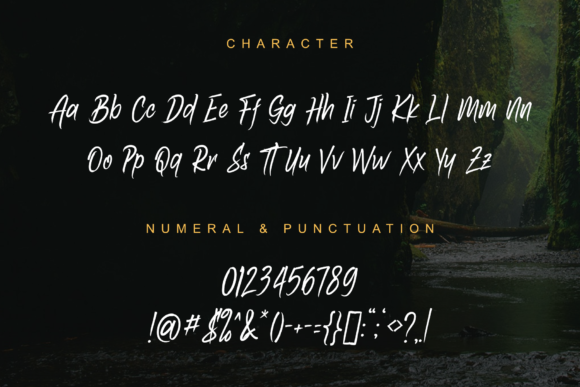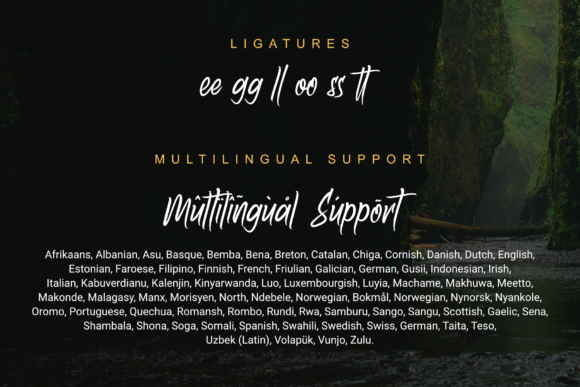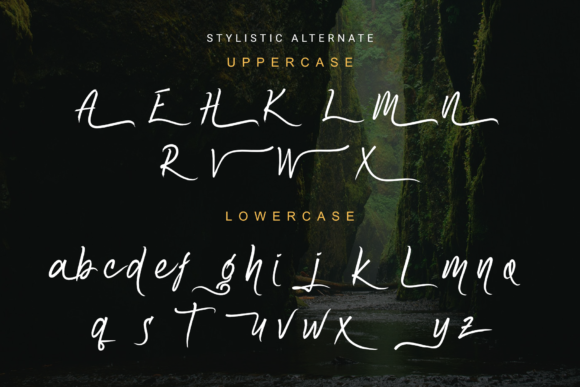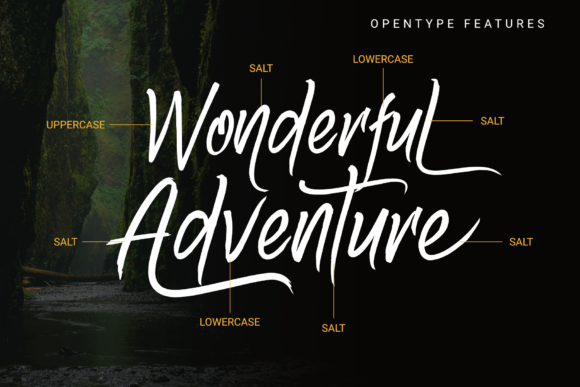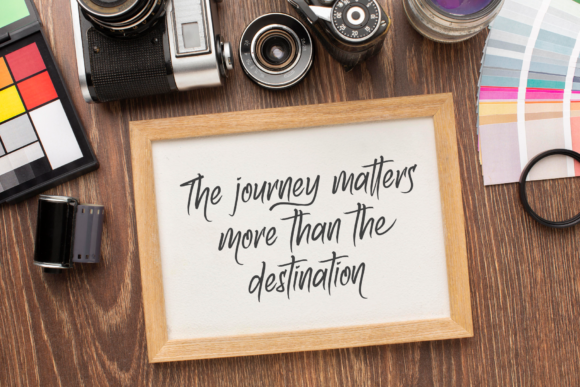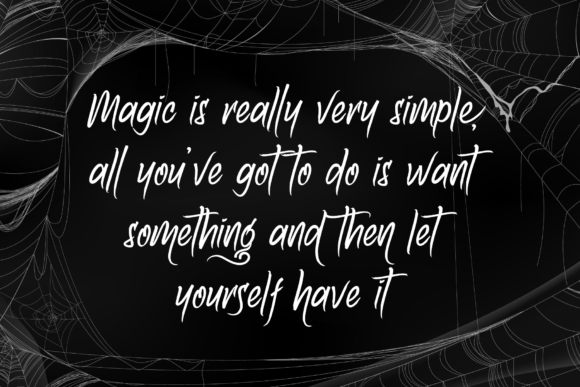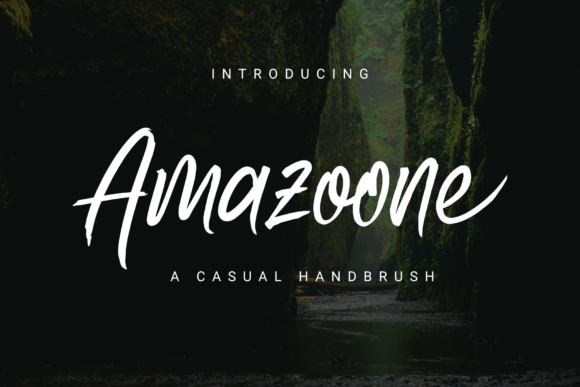
Introducing Amazoone Font: Elevate Your Designs with a Timeless Script Font
Are you a designer, crafter, or DIY enthusiast looking for a font that can add a touch of elegance and sophistication to your projects? Look no further than Amazoone Font, a classic script font that is sure to take your designs to the next level. In this article, we’ll explore the features and benefits of Amazoone Font, and show you how to make the most of this versatile and beautiful font.
What is Amazoone Font?
Amazoone Font is a stunning script font that is inspired by traditional calligraphy. With its flowing lines, intricate swashes, and classic letterforms, this font is perfect for creating realistic and spectacular designs. Whether you’re working on a branding project, a craft tutorial, or a DIY guide, Amazoone Font is the perfect choice for adding a touch of elegance and sophistication.
Key Features of Amazoone Font
So what sets Amazoone Font apart from other script fonts on the market? Here are just a few of its key features:
• PUA Encoding: Amazoone Font is PUA (Private Use Area) encoded, which means that you can access all of the glyphs and swashes with ease. This makes it simple to customize your designs and add your own personal touch.
• Classic Script Style: Amazoone Font features a classic script style that is reminiscent of traditional calligraphy. With its flowing lines and intricate swashes, this font is perfect for creating realistic and spectacular designs.
• Highly Versatile: Amazoone Font is highly versatile, making it perfect for a wide range of design projects. Whether you’re working on a logo, a brochure, or a social media graphic, this font is sure to make your designs stand out.
How to Use Amazoone Font
Using Amazoone Font is easy, even if you’re new to design or crafting. Here are a few tips to get you started:
• Pair it with Other Fonts: Amazoone Font pairs perfectly with other fonts, including sans-serif fonts, and other script fonts. Experiment with different font combinations to find the perfect look for your design.
• Experiment with Swashes: Amazoone Font features a range of swashes and glyphs that you can use to add a personal touch to your designs. Experiment with different swashes and glyphs to find the perfect look for your project.
• Use it for Titles and Headings: Amazoone Font is perfect for titles and headings, where its elegant and sophisticated style can really shine. Use it to add a touch of elegance to your designs and make your text stand out.
Benefits of Using Amazoone Font
So why should you choose Amazoone Font for your design projects? Here are just a few of the benefits of using this beautiful font:
• Elegant and Sophisticated: Amazoone Font adds an elegant and sophisticated touch to your designs, making it perfect for projects where you want to make a lasting impression.
• Highly Versatile: Amazoone Font is highly versatile, making it perfect for a wide range of design projects, from logos and brochures to social media graphics and craft tutorials.
• Easy to Use: Amazoone Font is easy to use, even if you’re new to design or crafting. Its PUA encoding makes it simple to access all of the glyphs and swashes, and its classic script style is easy to pair with other fonts.